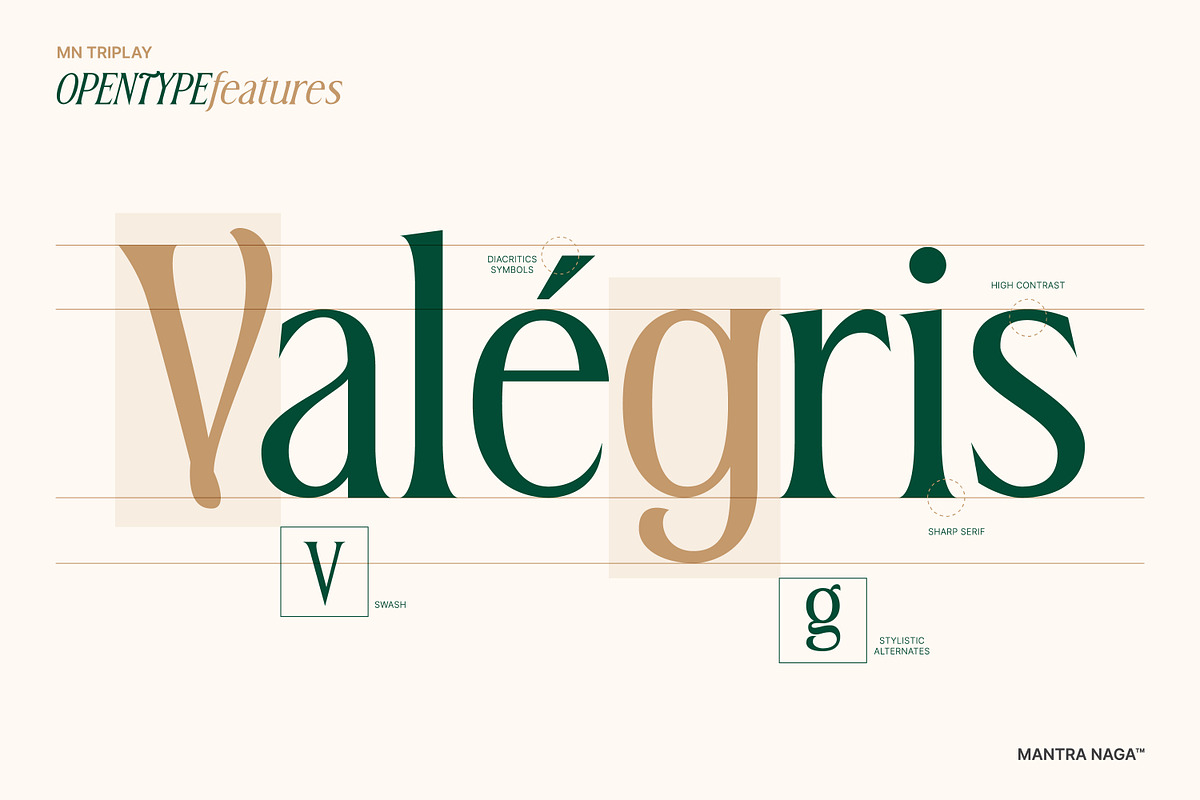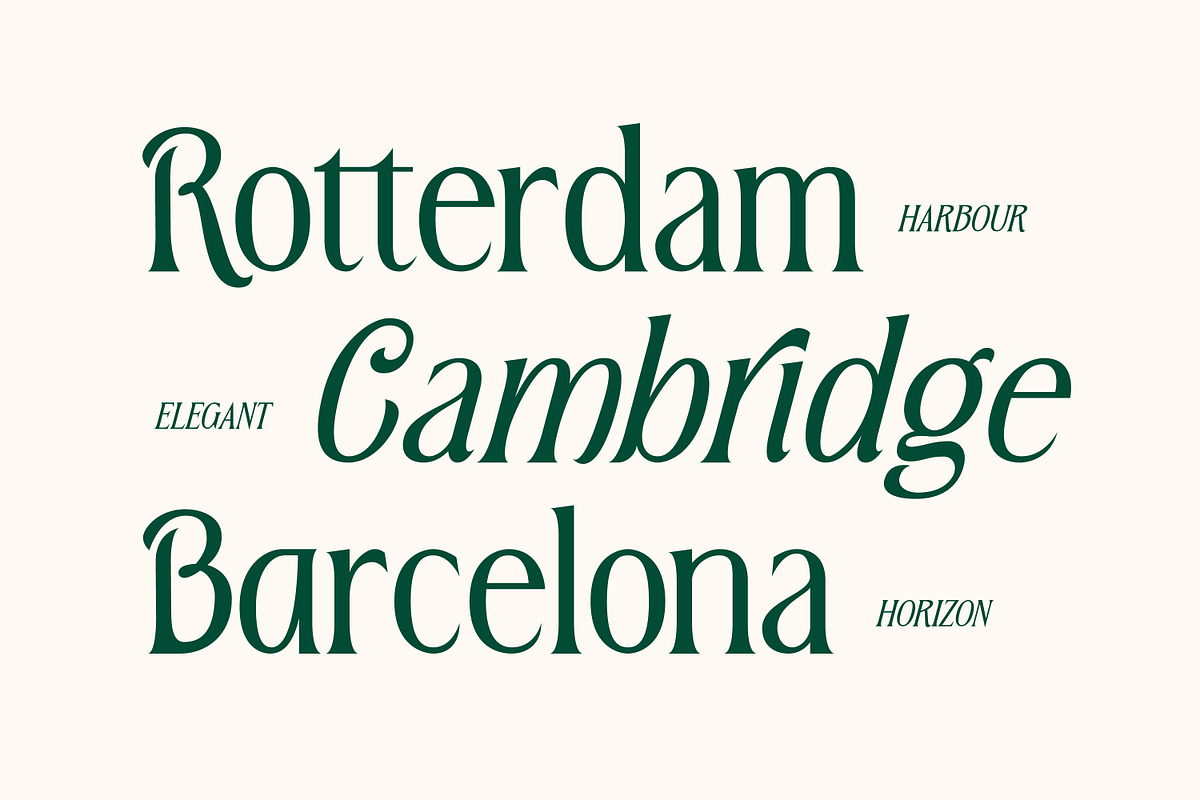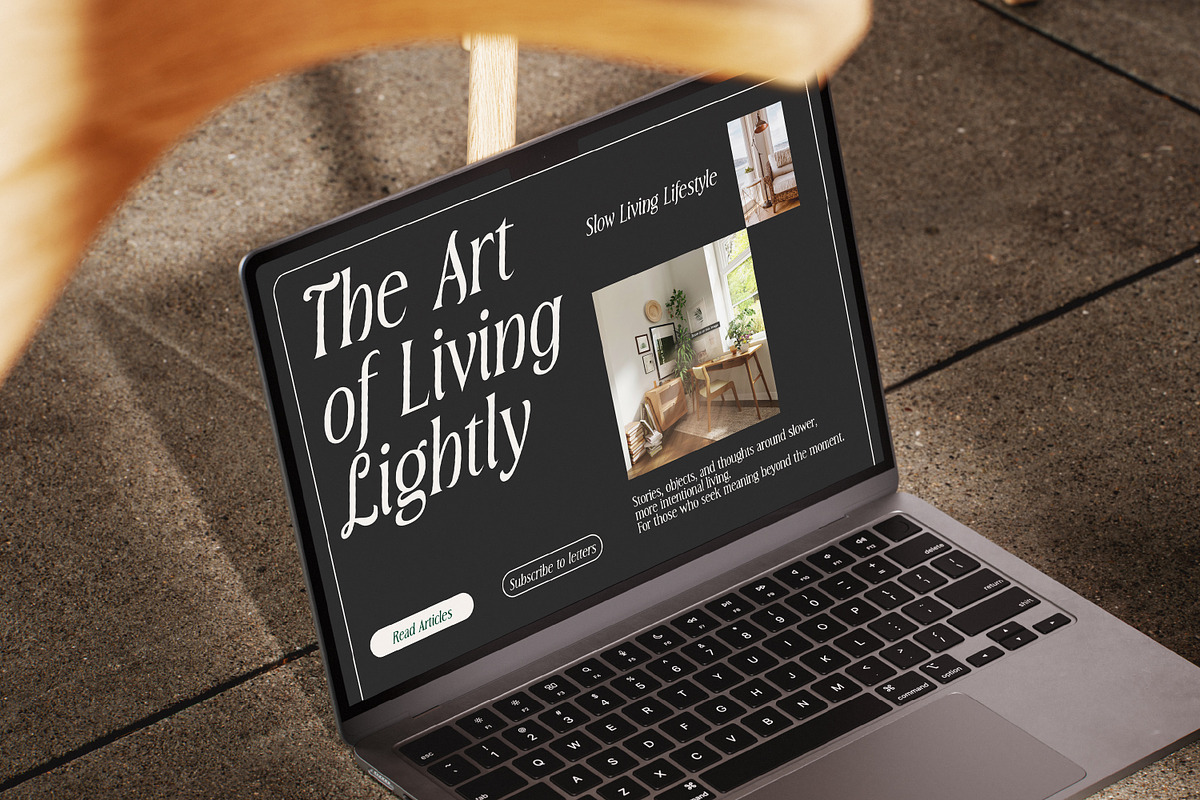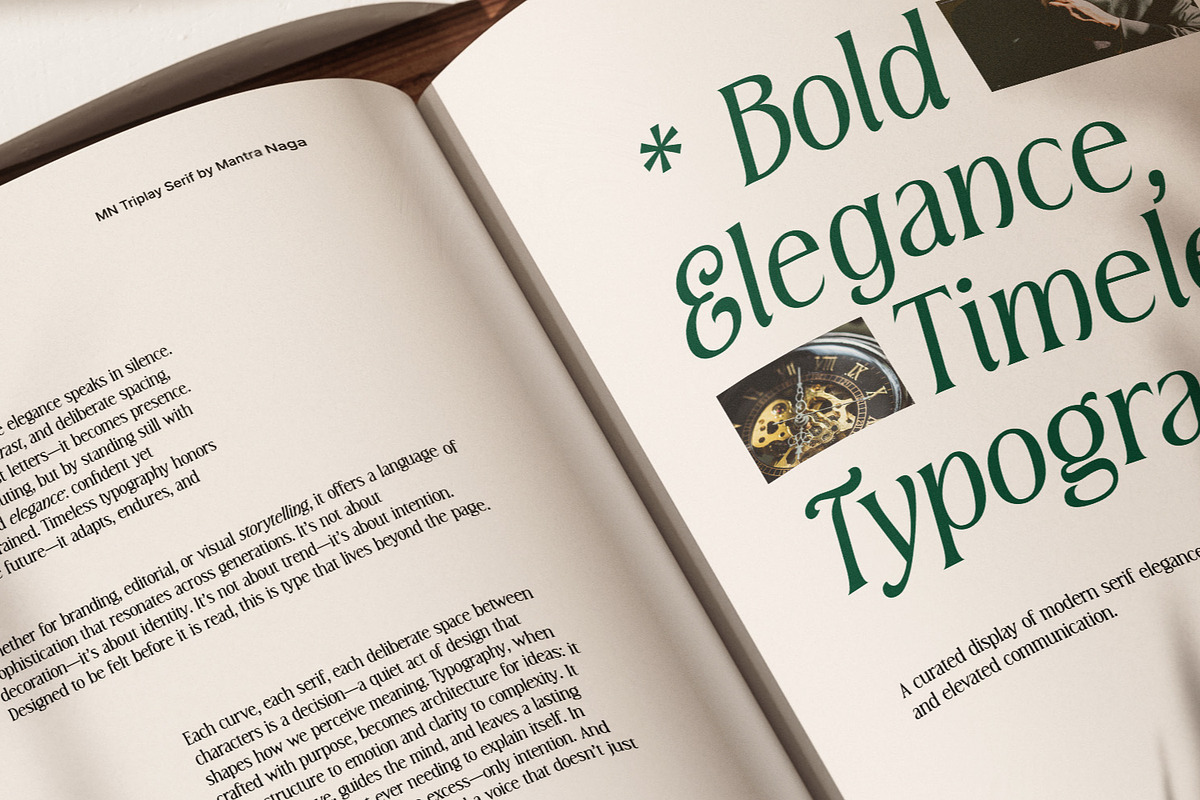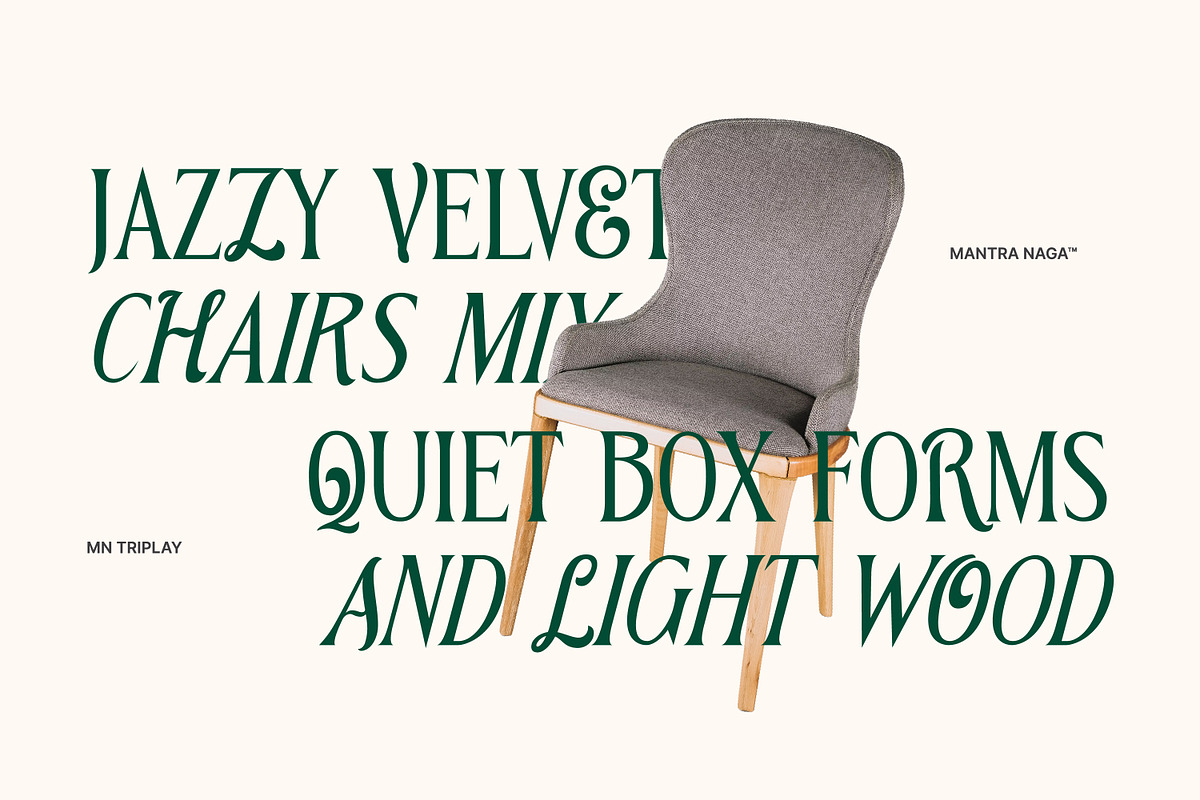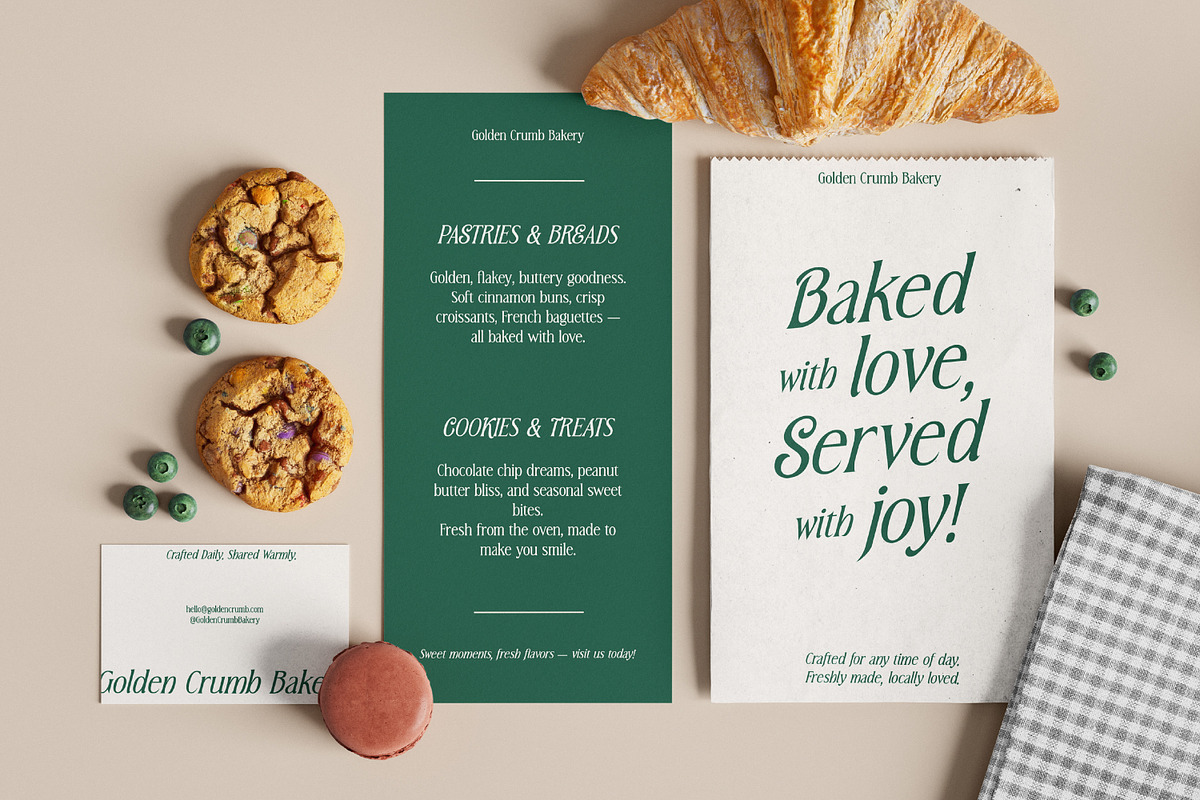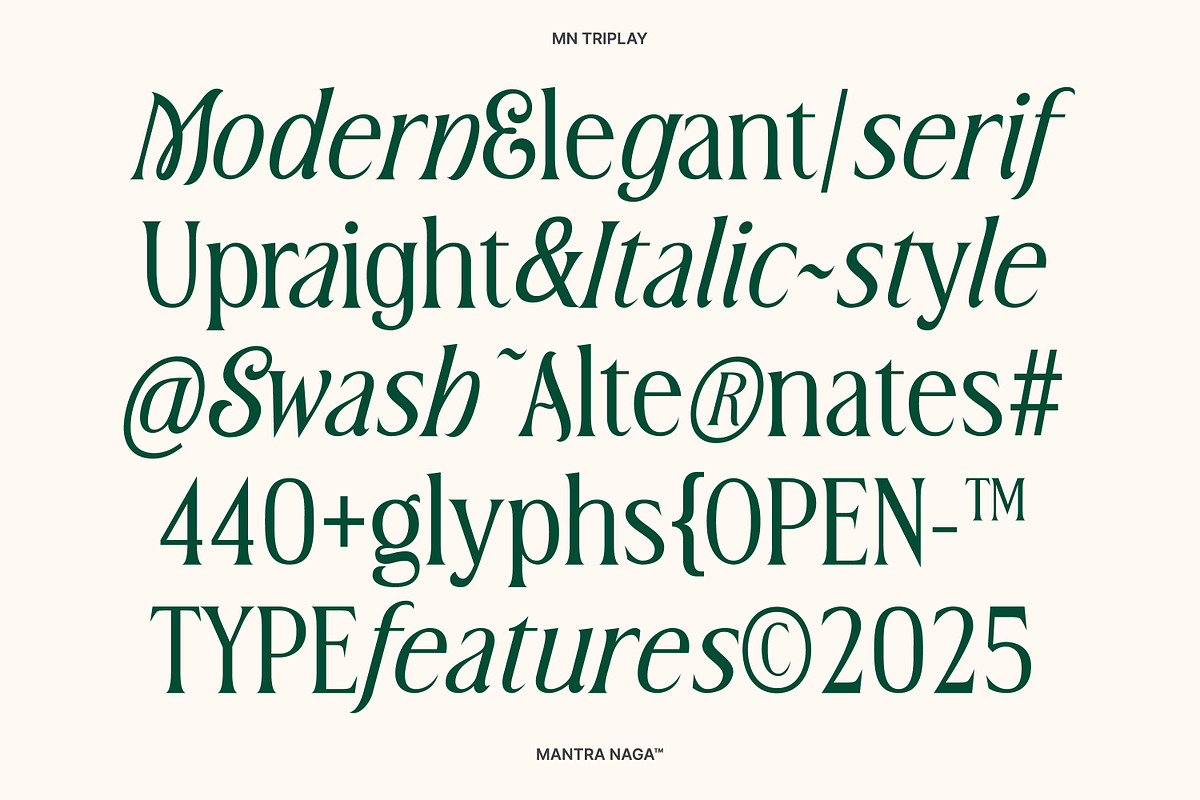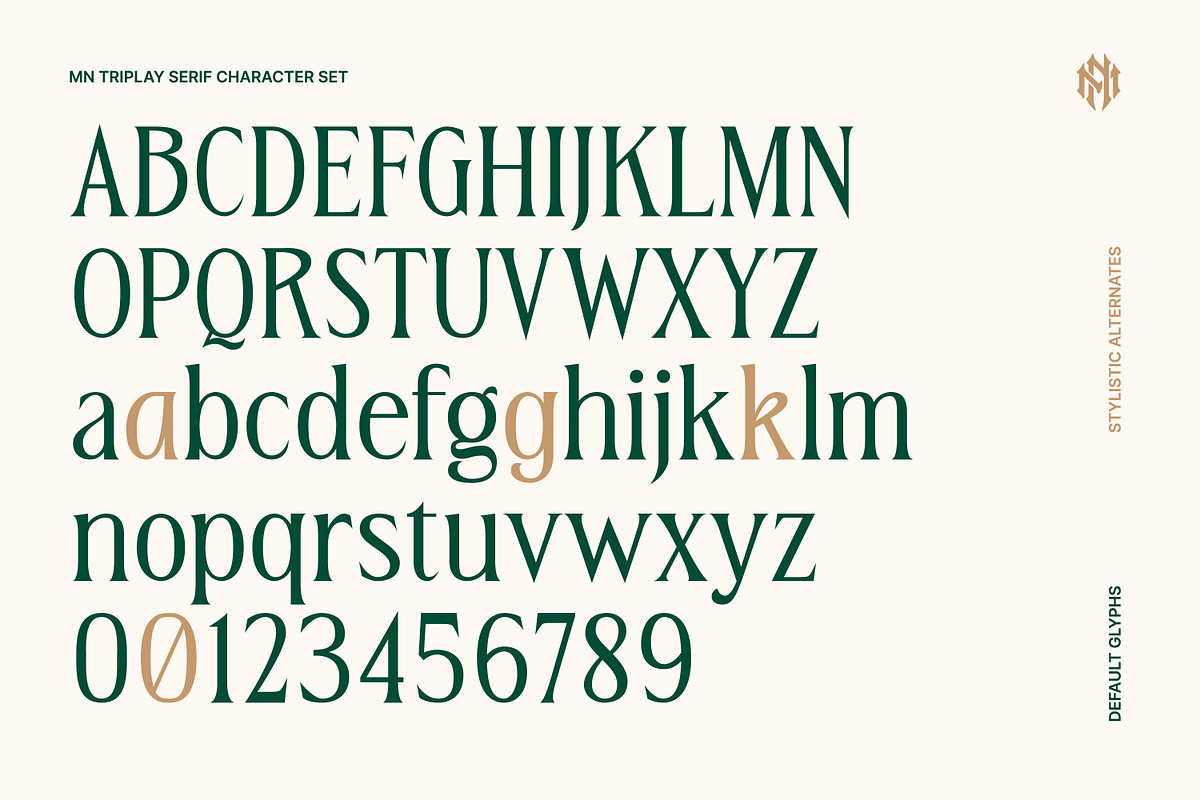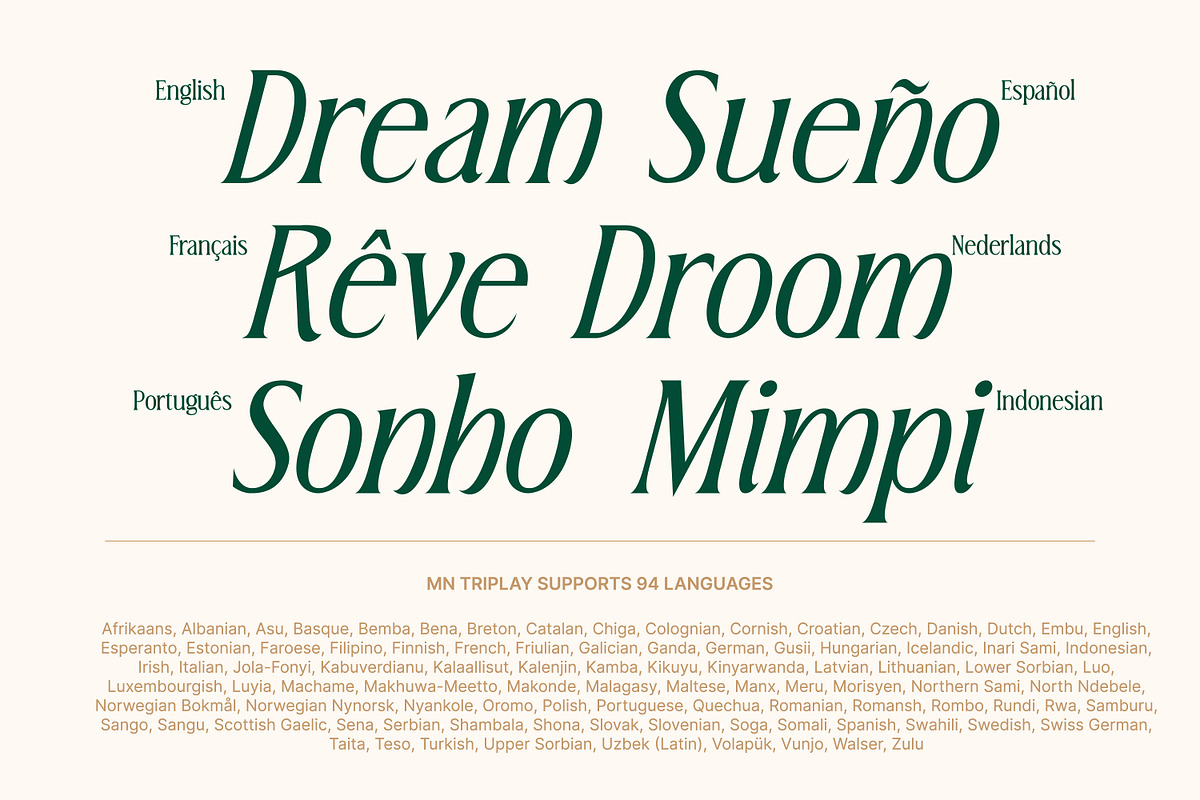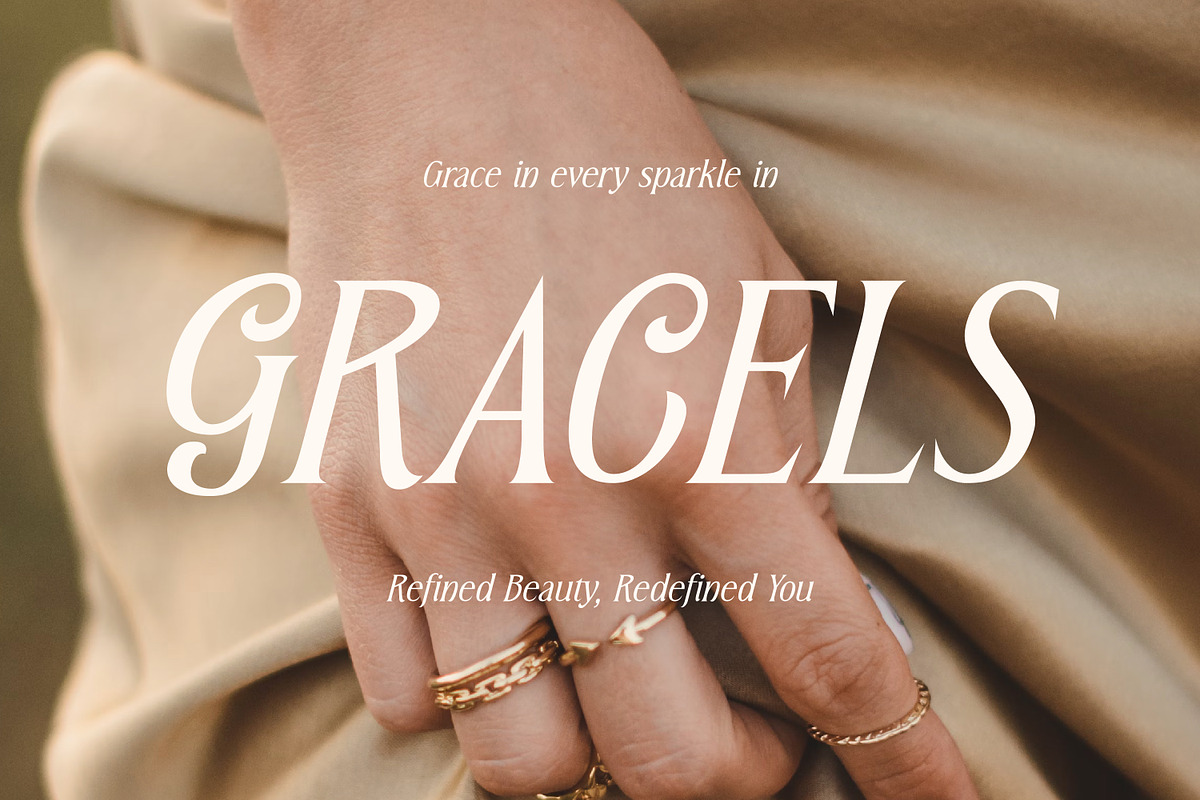
MN Triplay - Elegant Display Serif
MN Triplay is a modern elegant serif display font with a distinctive twist. What makes it stand out is its set of alternate uppercase characters that blend script-like flair with traditional serif structure, creating a unique and stylish tone. If you're familiar with our Mantova font, MN Triplay follows a similar concept but offers a more extensive glyph set and more balanced stroke contrast, making it more versatile across design contexts.
MN Triplay comes in two styles: Upright (Regular) and Italic. While it's designed primarily for display purposes such as headlines, branding, or logos, it also works beautifully in editorial layouts and long-form text with the right typographic treatment.